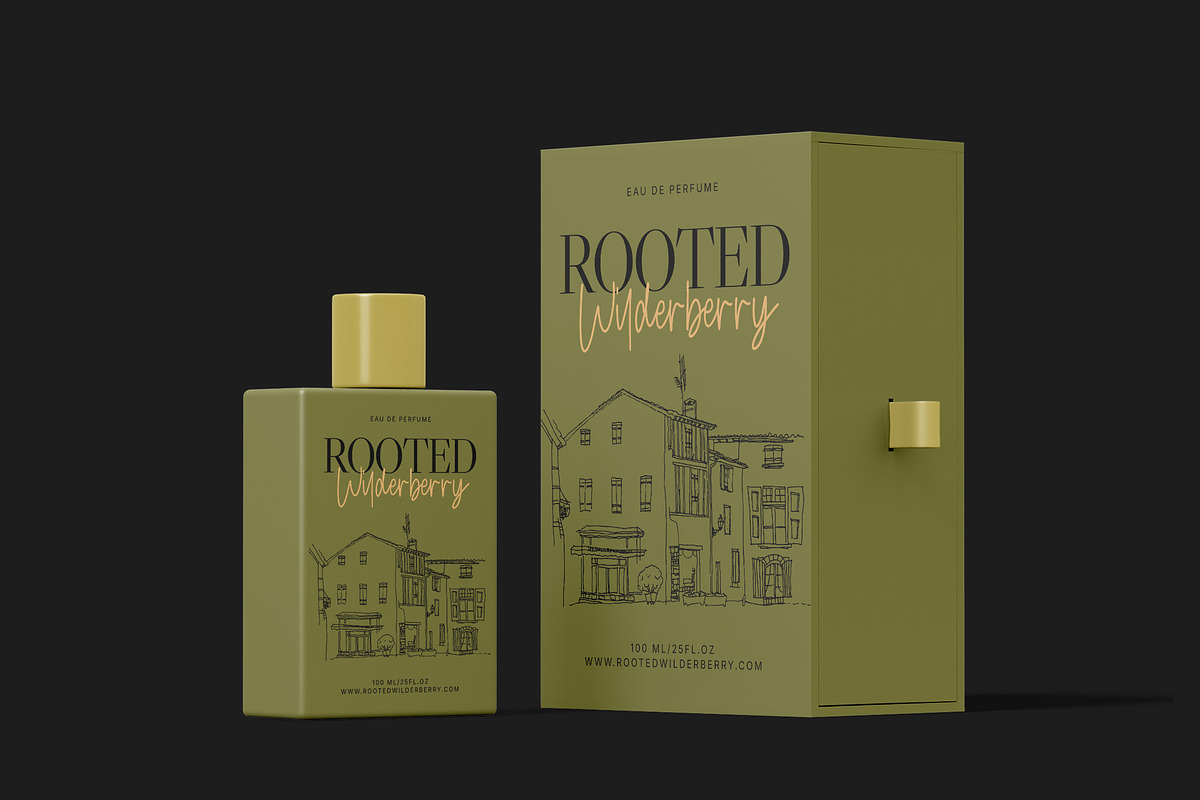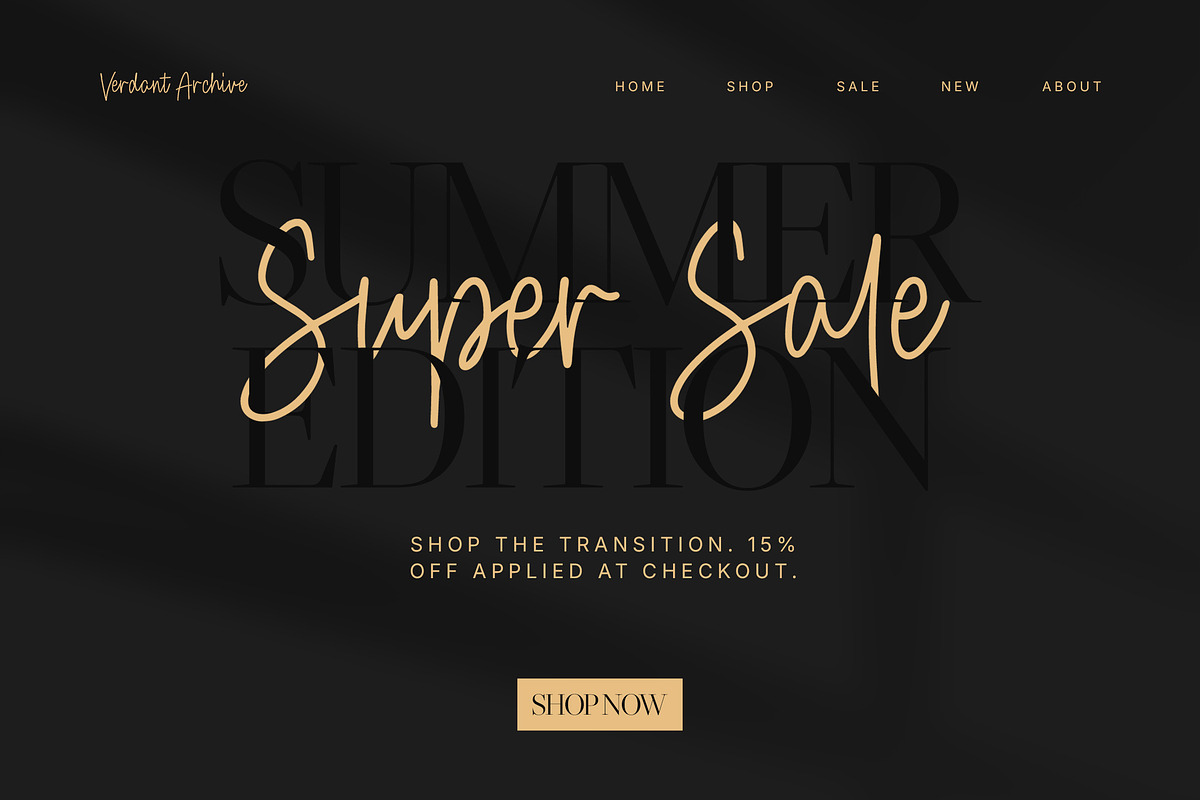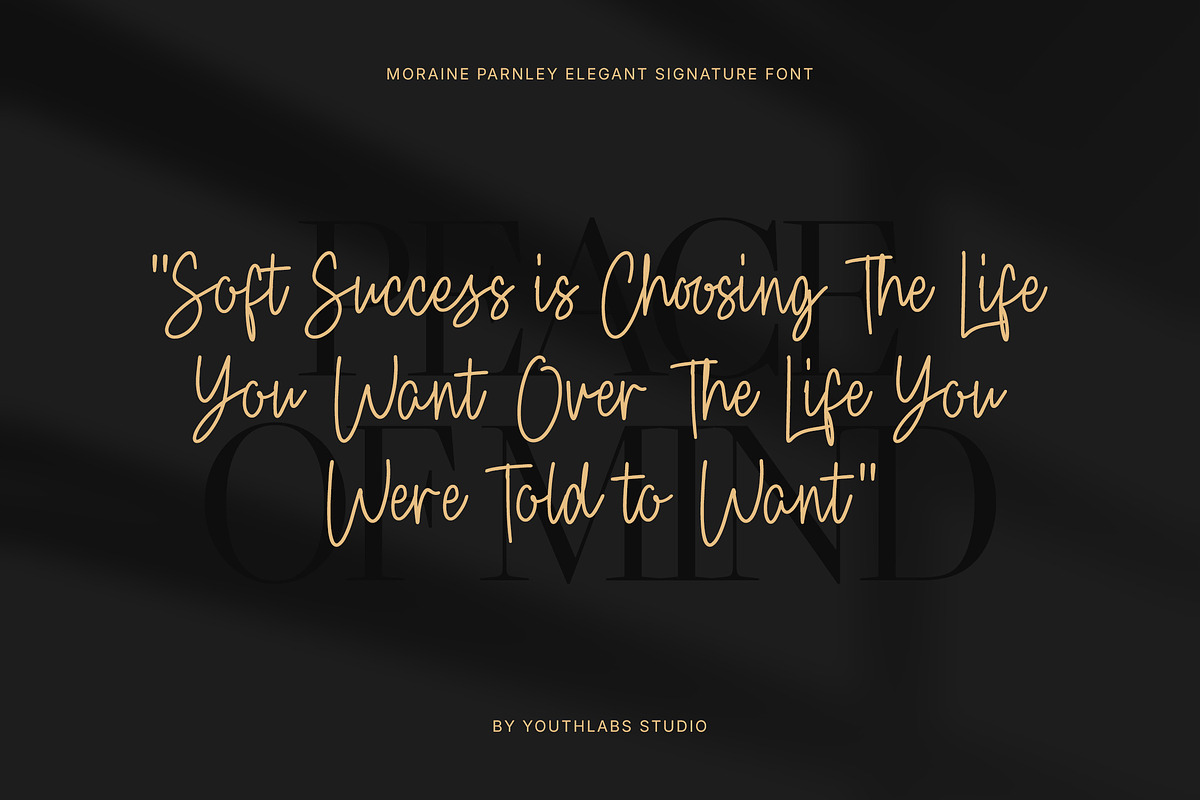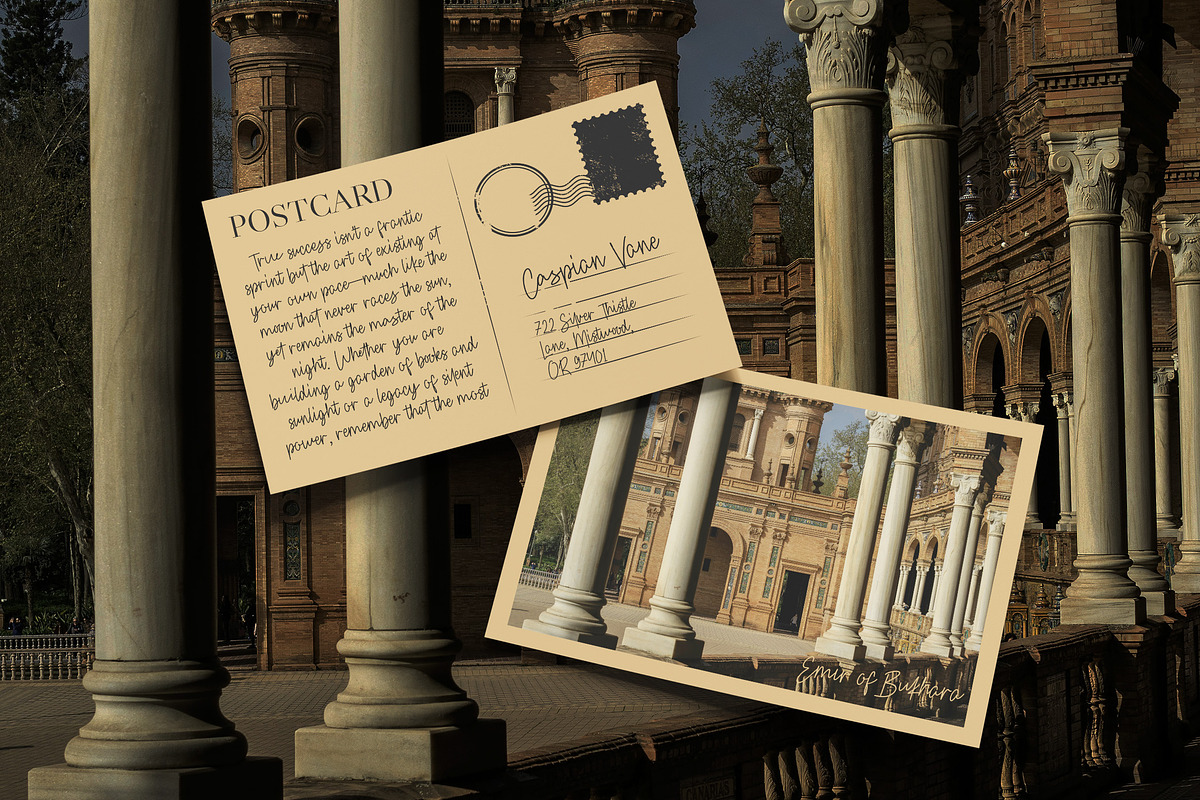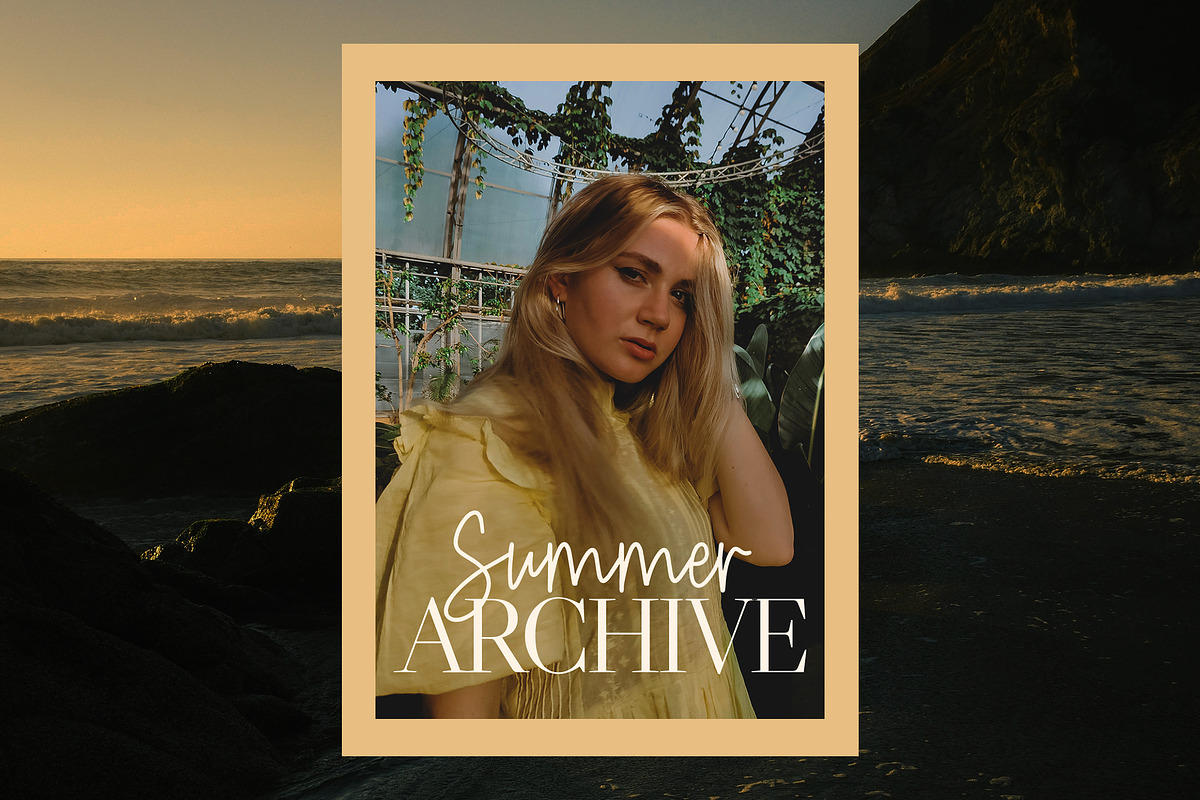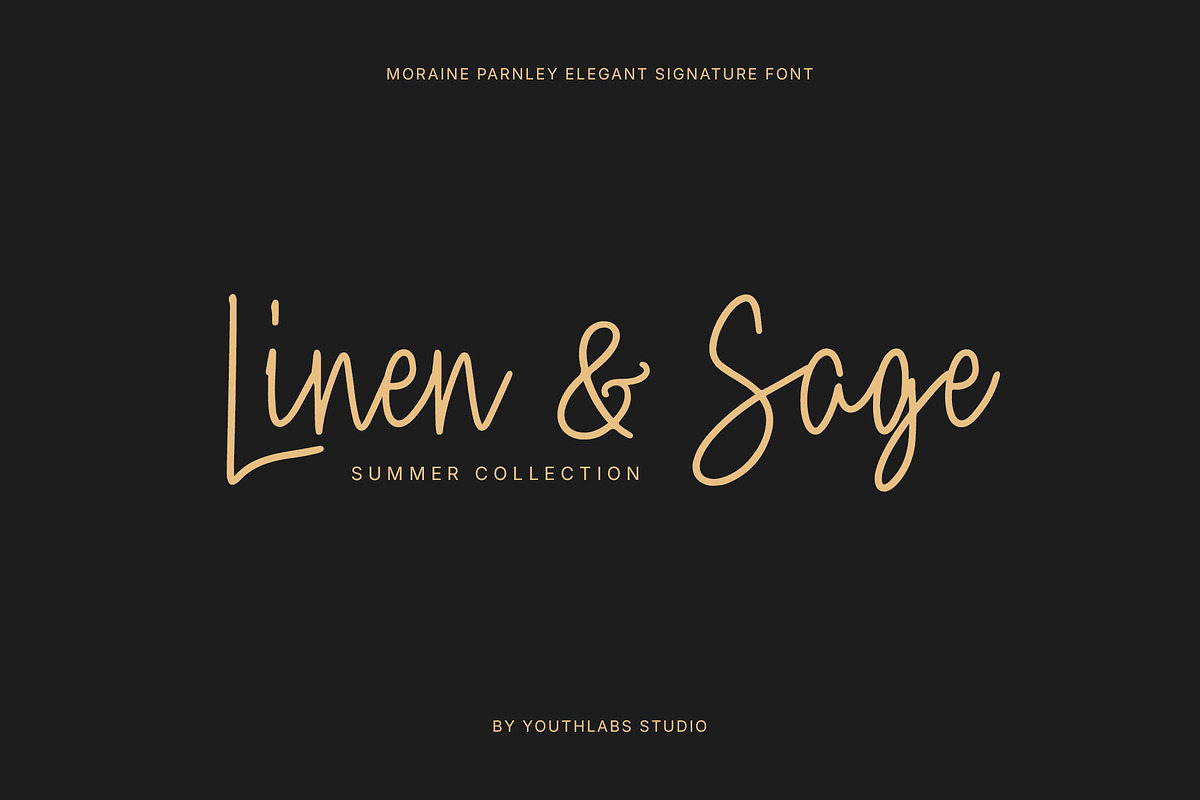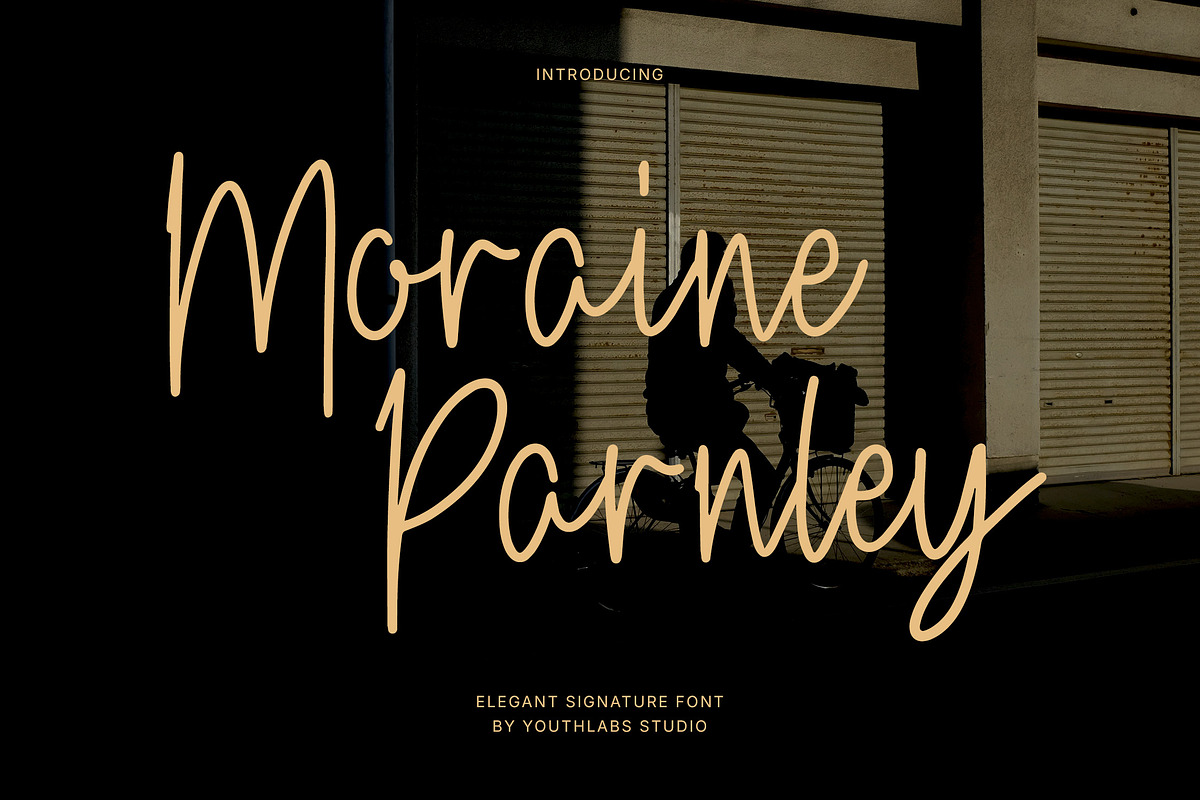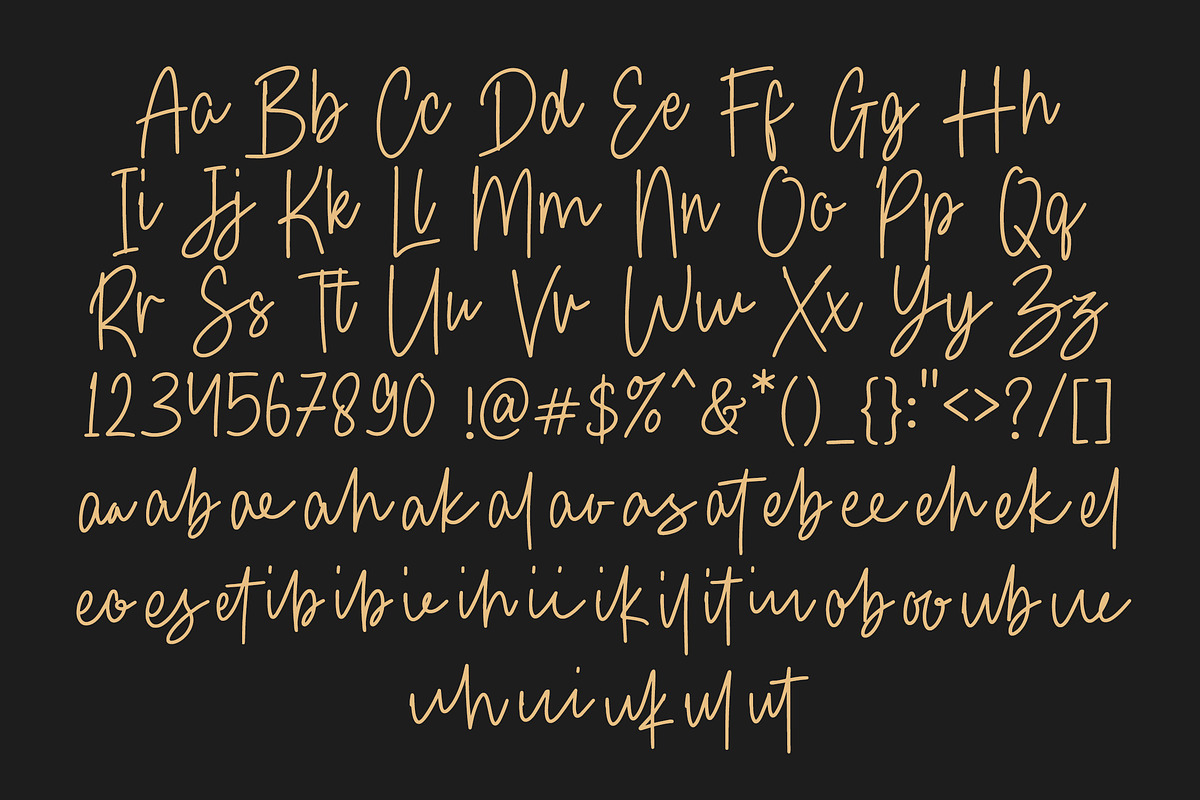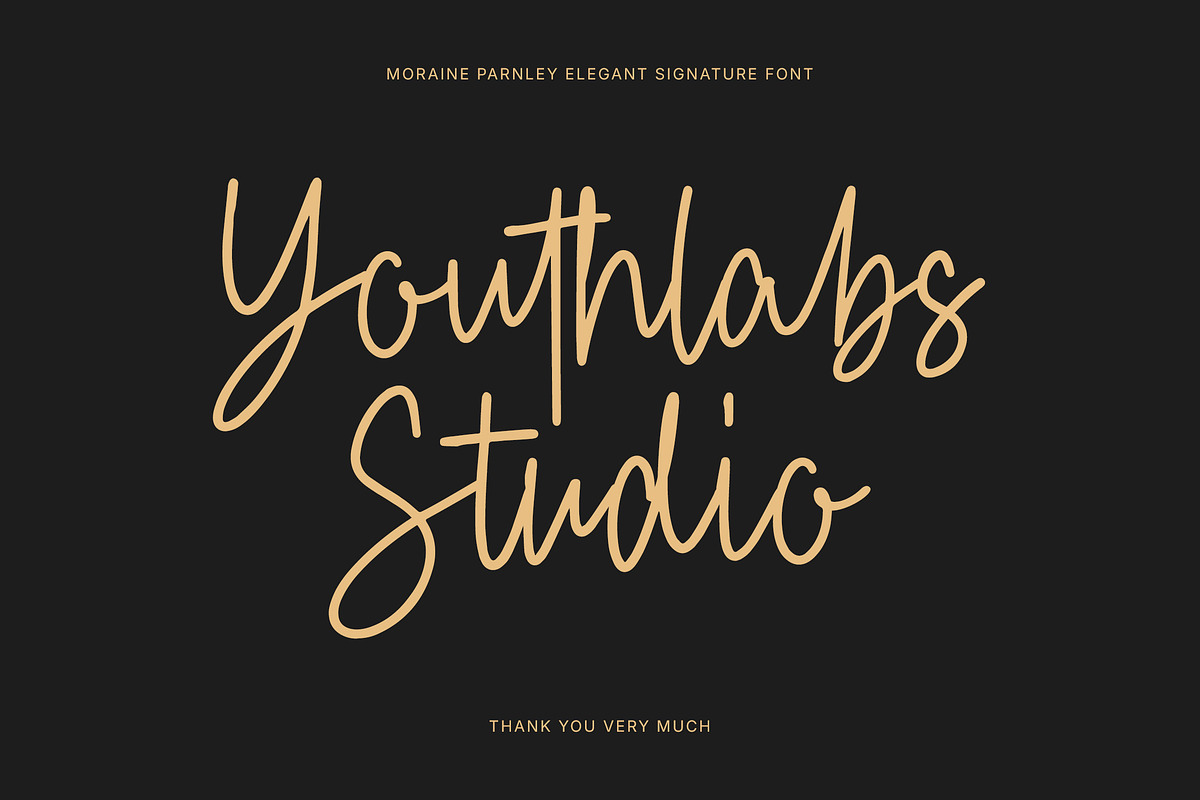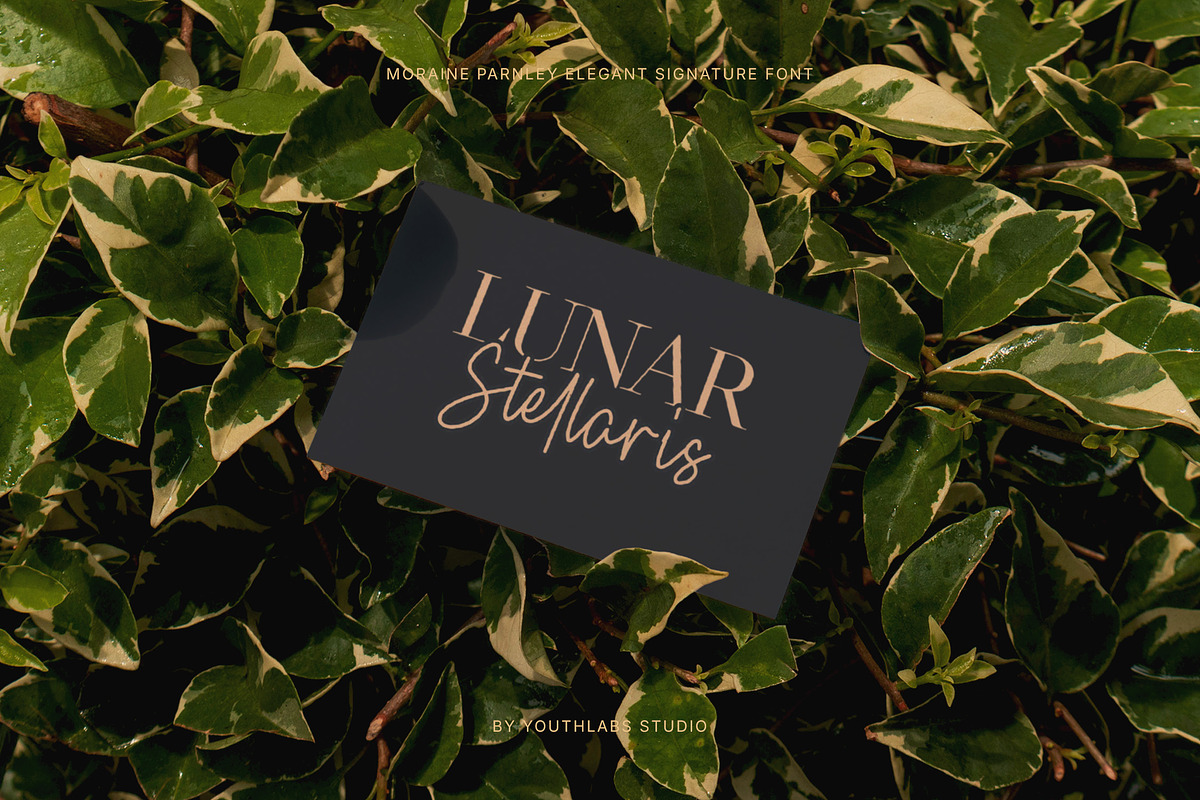
Moraine Parnley - Elegant Signature
Moraine Parnley is an elegant signature font that strikes the perfect balance between artistic flair and professional poise. Designed by Youthlabs Studio, this typeface features elongated strokes and a fluid, rhythmic flow that mimics the effortless motion of a fountain pen. It is specifically crafted for projects that require a touch of exclusivity and personal connection. Whether you are building a premium lifestyle brand, designing sophisticated event stationery, creating high-end product packaging, or developing a stylish personal watermark, Moraine Parnley adds a refined, human element that feels both timeless and modern.
- Slim Elegant Strokes
- Authentic Signature Flow
- Elongated Character Extensions
- Refined Luxury Aesthetic
- High-Contrast Script Design
- Hand-Crafted Organic Feel